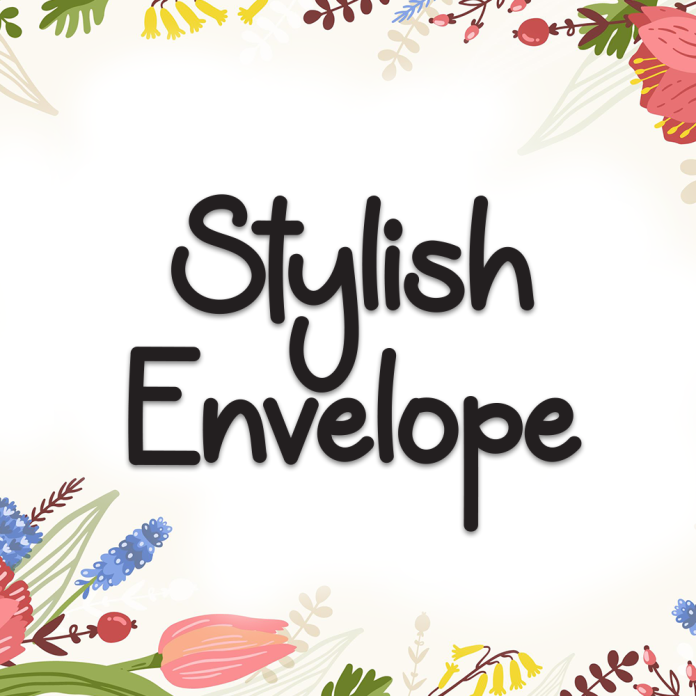
Stylish Envelope is a charming and eye-catching display font that blends elegance with a playful touch. With its unique shapes and decorative details, this font is perfect for creating standout titles and memorable designs.
Bold and stylish display design
Ideal for invitations, packaging, posters, and branding
Distinctive letterforms for high visual impact